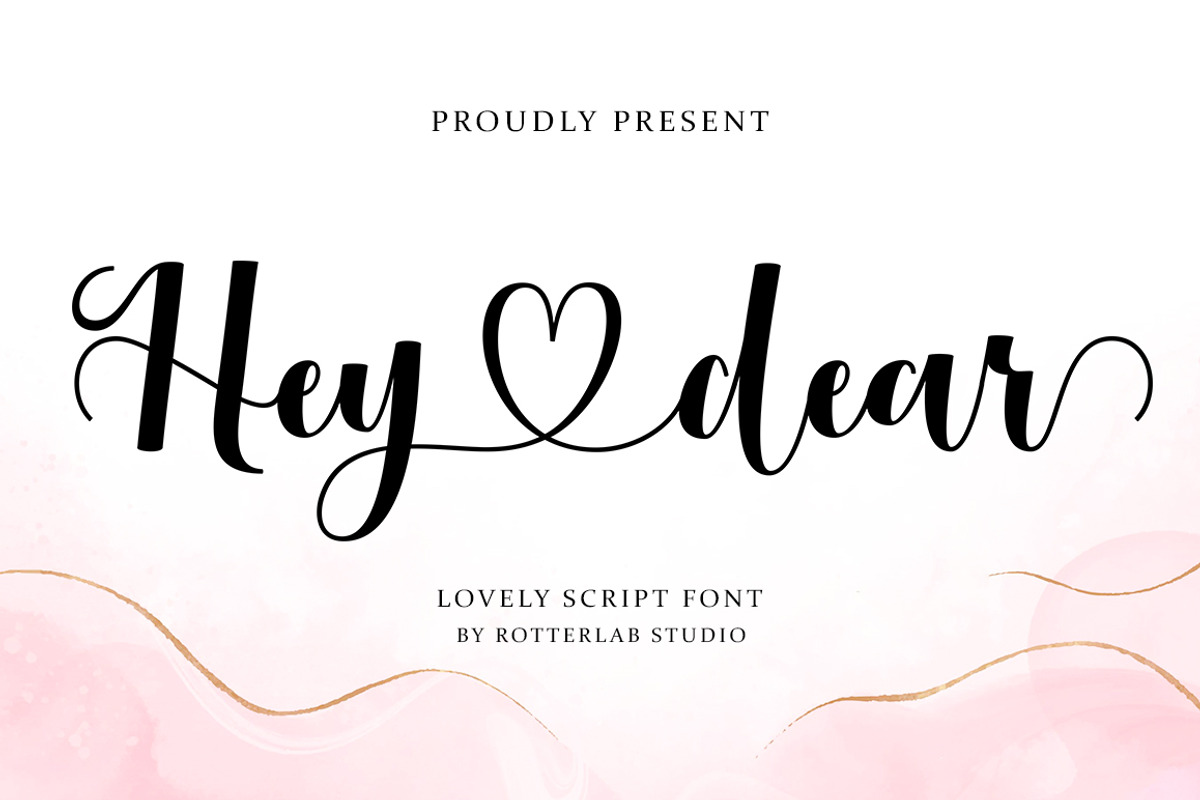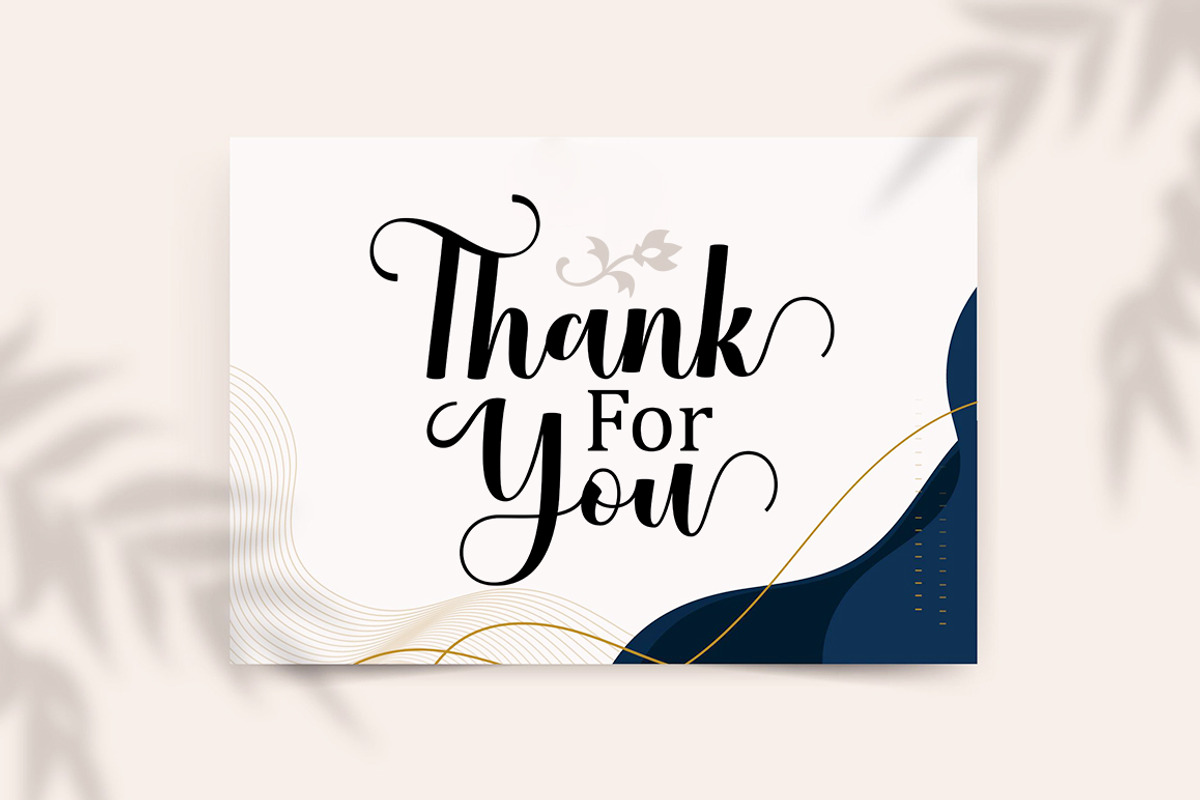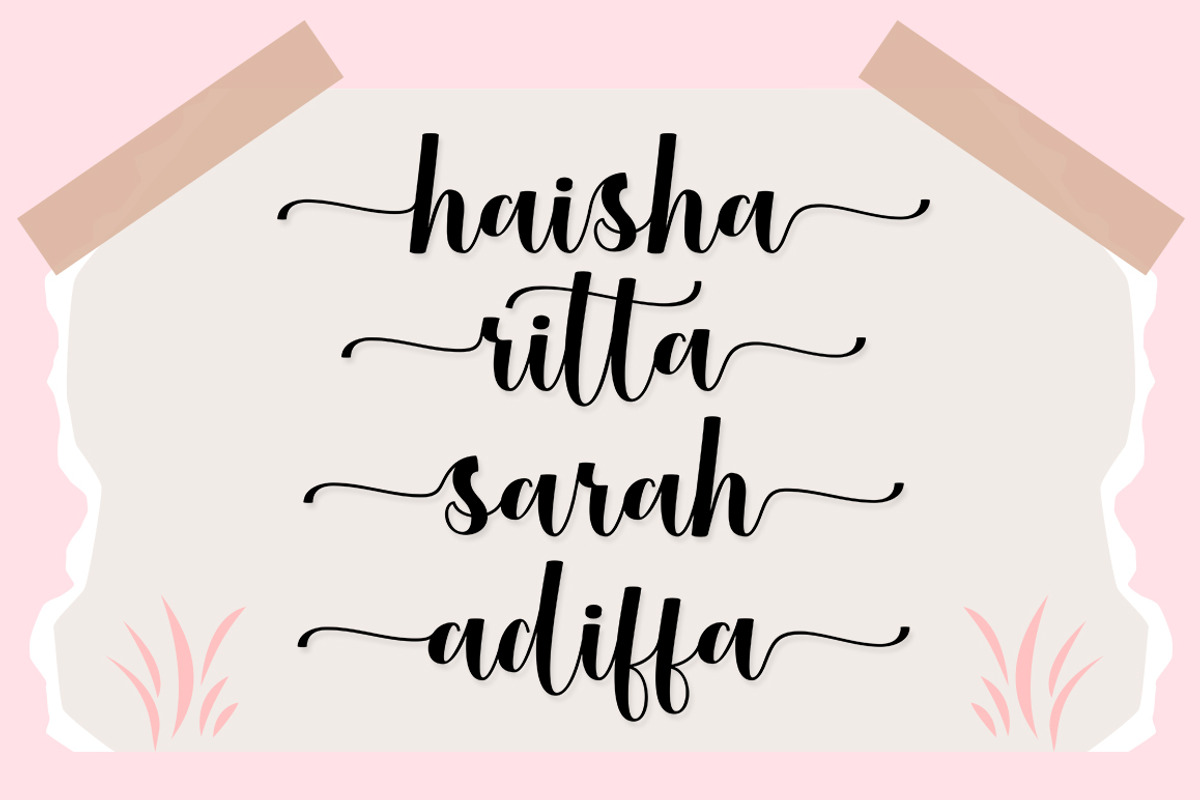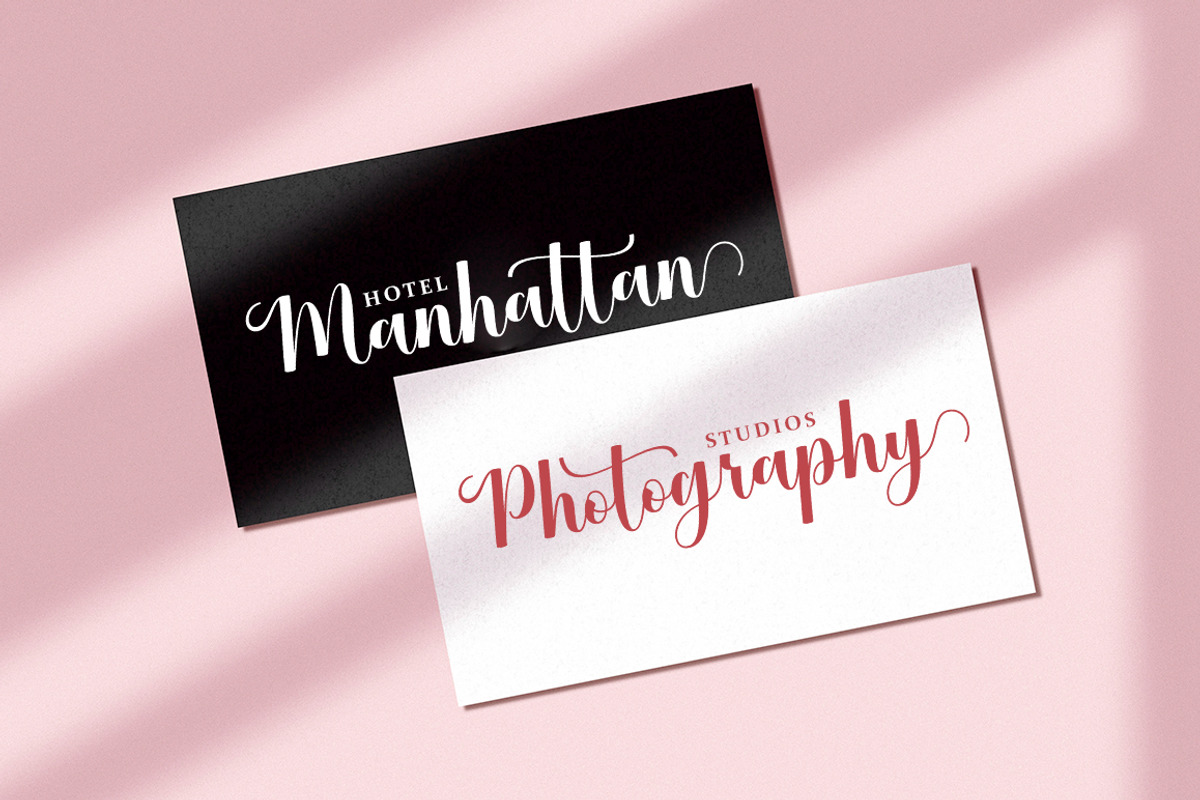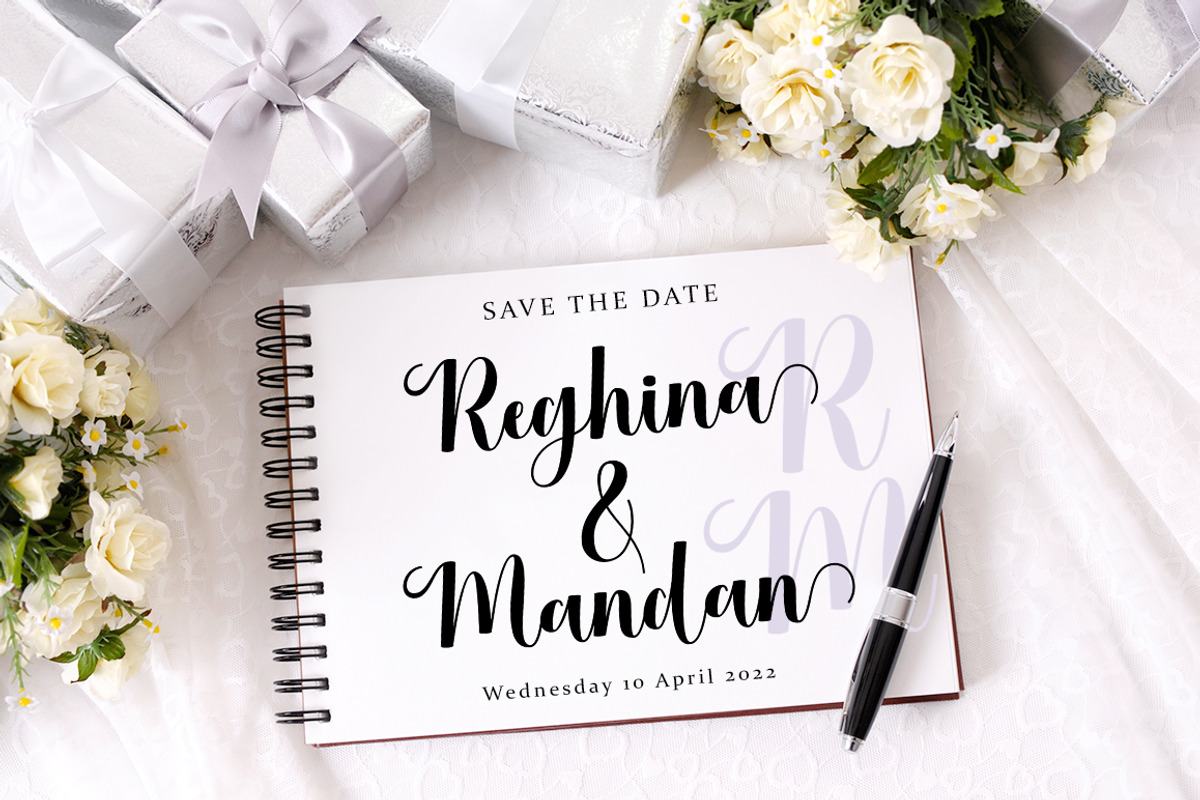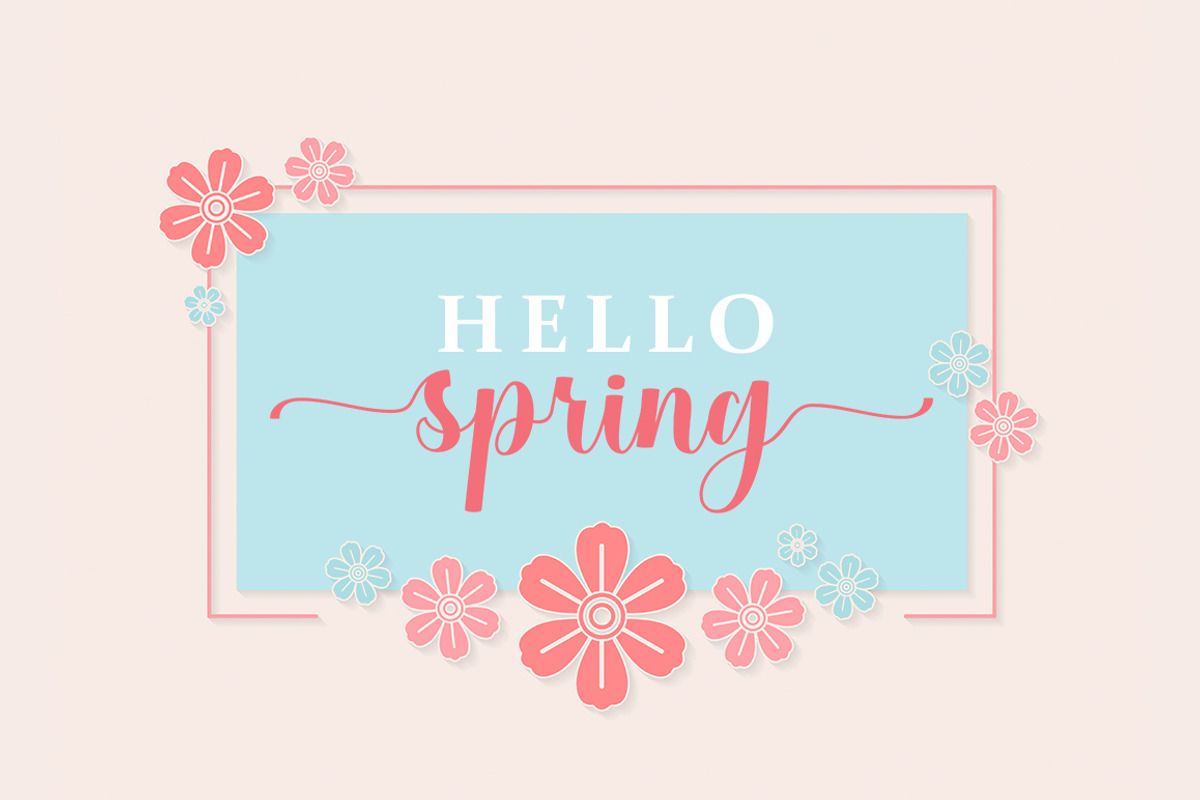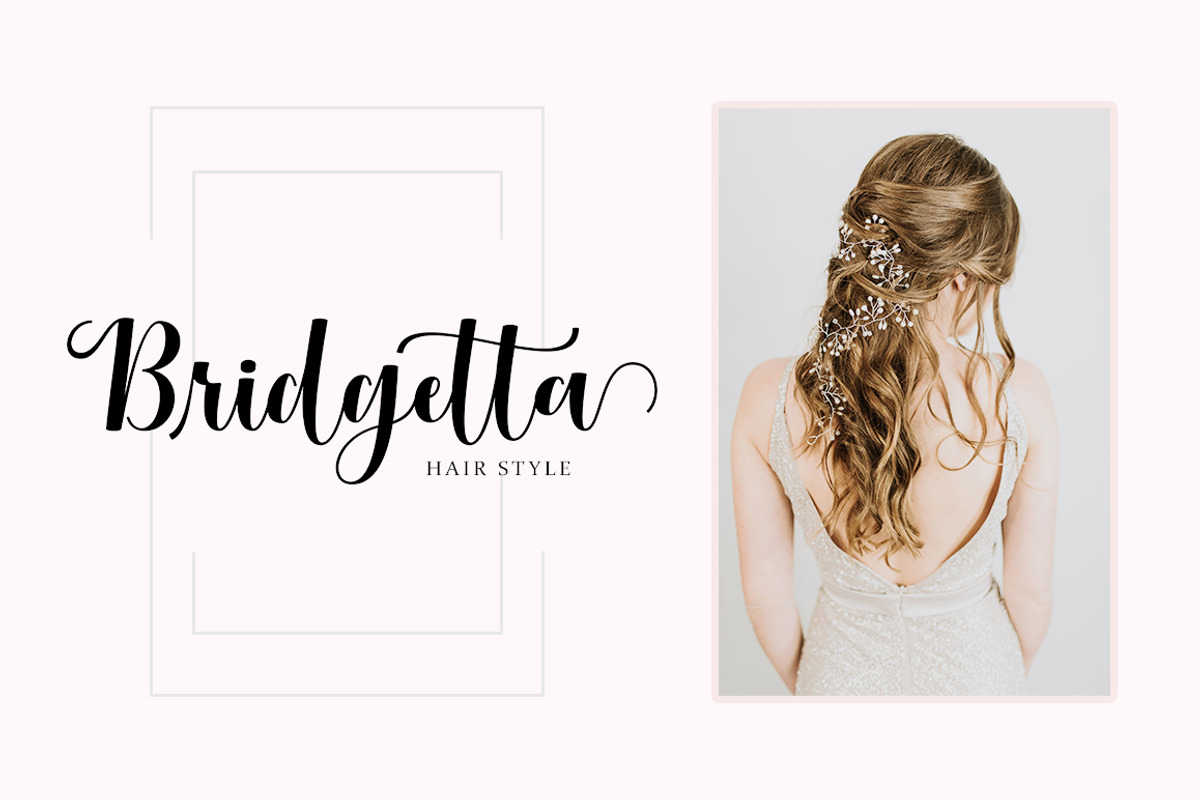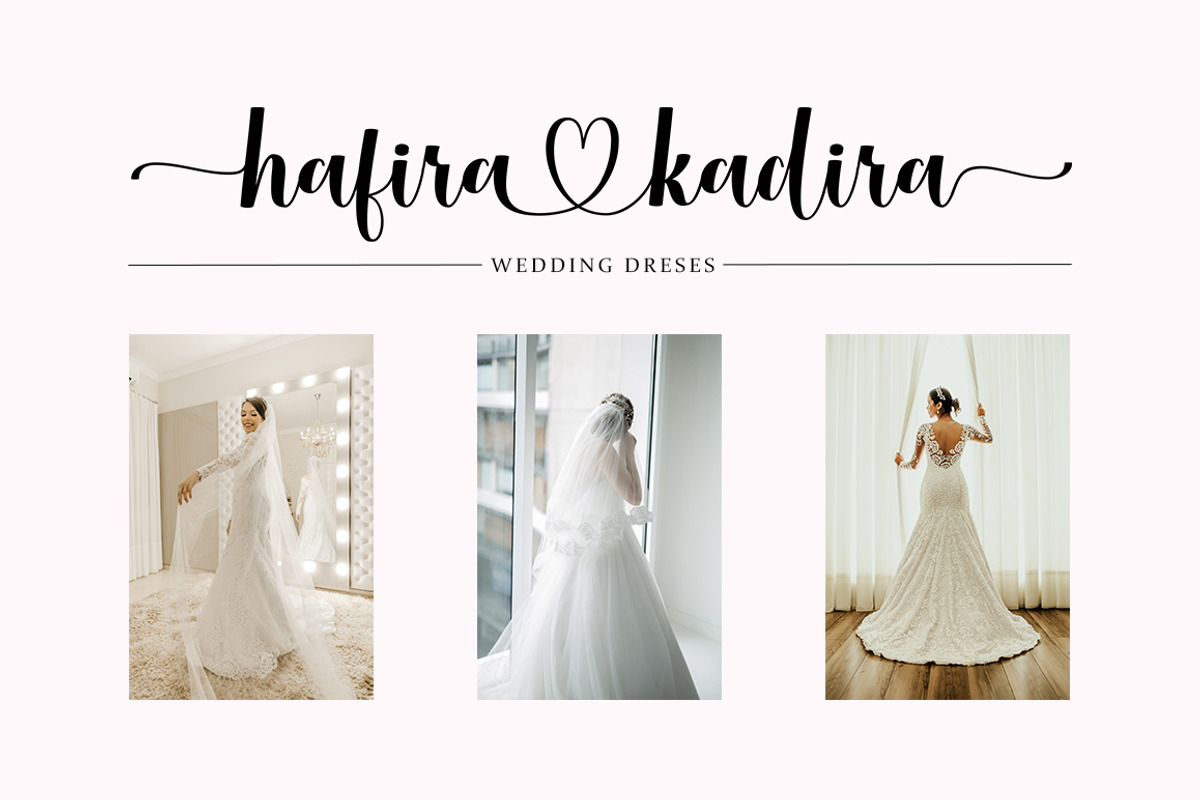
Hey Dear
Hey dear Script is a modern script with handwriting, decorative characters and dancing baselines! very suitable for use Such as blog headers, branding, t-shirts, weddings, social media, product design, stationery, advertising, clothing, book covers, business cards, greeting cards, branding, merchandise, invitations and handmade quotes and many more.
Hey dear, OpenType Script features alternative styles, ligatures and International support for most Western Languages included.